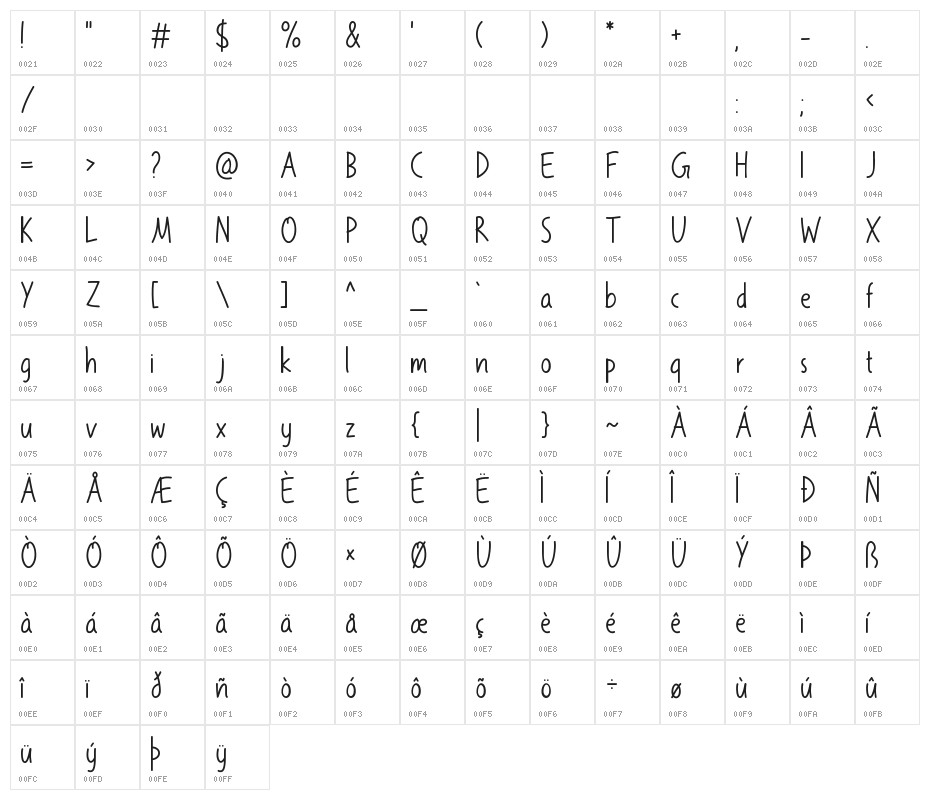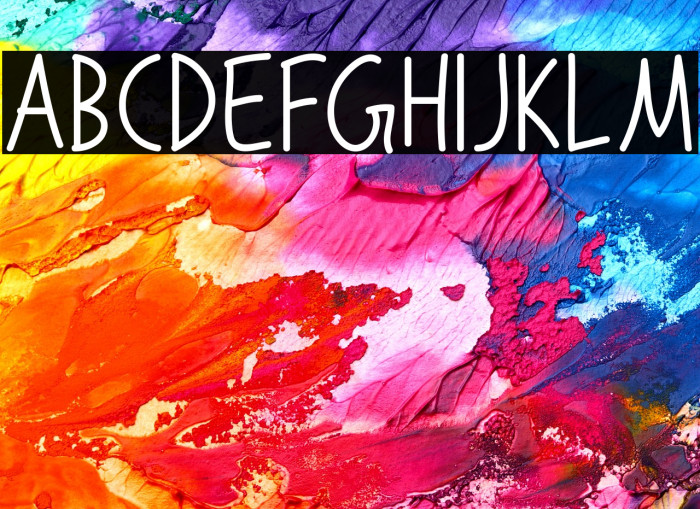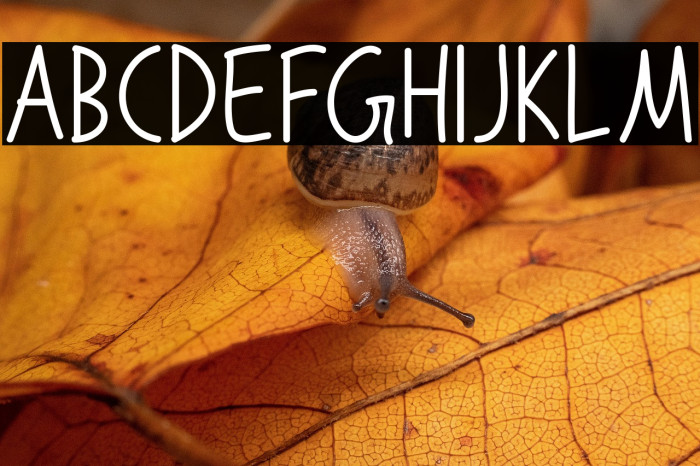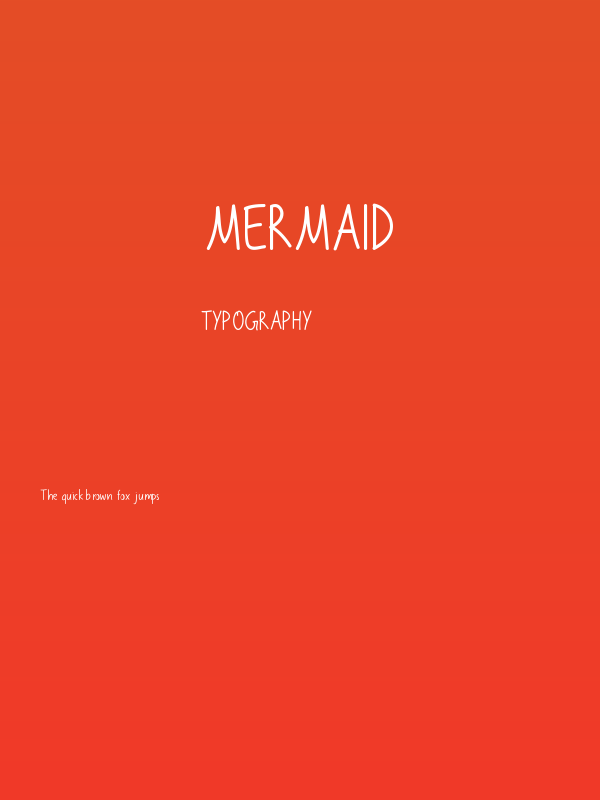
Mermaid Font
Mermaid Description
This playful and whimsical font features a handwritten style with a casual and friendly appearance. The letters are slightly irregular, adding a personal touch that mimics natural handwriting. The strokes are consistent in width, giving it a clean and approachable look. The uppercase letters are tall and narrow, while the lowercase letters maintain a uniform height, enhancing readability. The special characters are crafted with the same playful flair, making this font suitable for creative and informal projects.
| Proposed Projects | Ideal for children's books, greeting cards, informal invitations, and playful branding. |